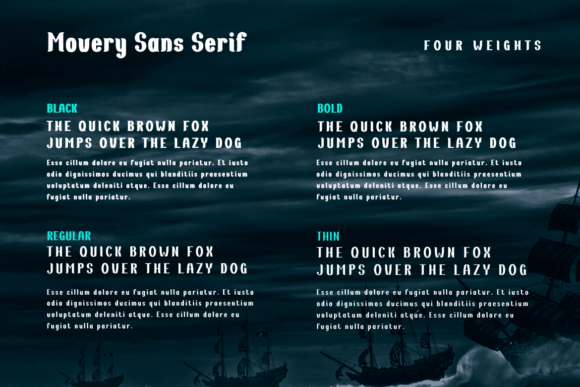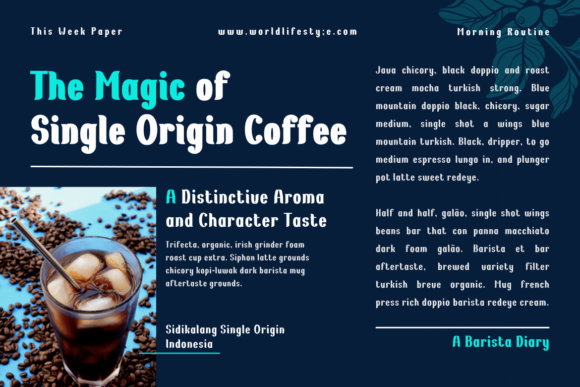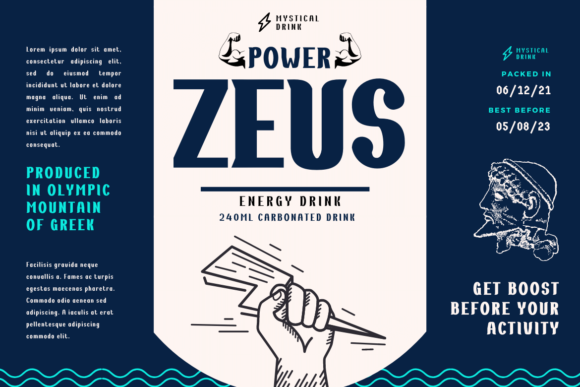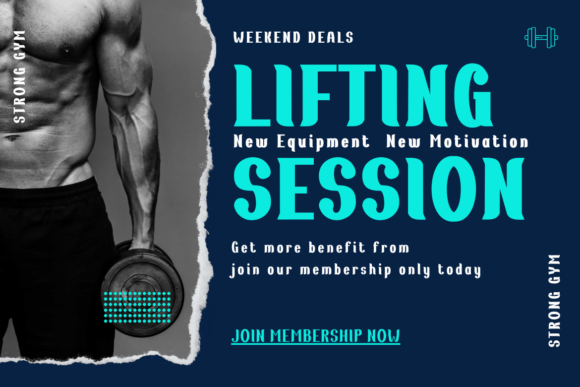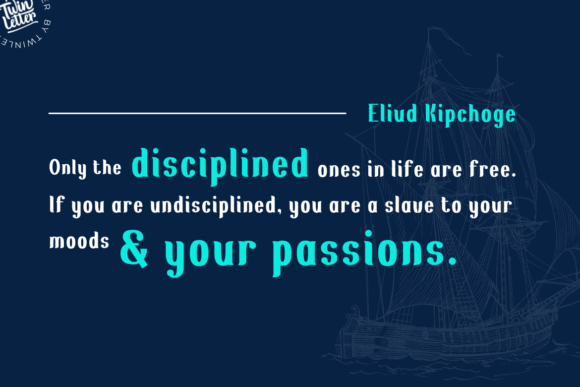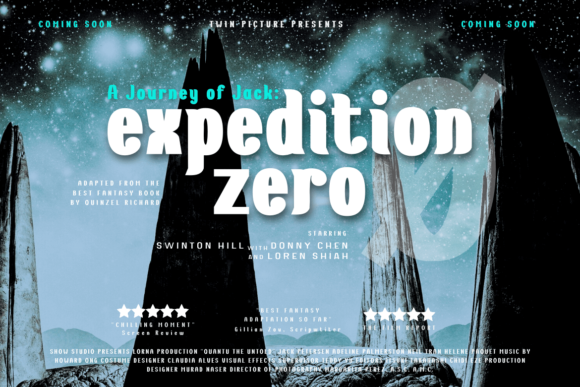
Introduction to Moveri Font
Moveri is a lovely sans-serif typeface with powerful curves and a minimalist design.
Whatever the theme, this versatile typeface gives a clean and impressive style thatโs excellent for branding, digital products, and creative ventures .
Key Features of Moveri Font
Why Choose Moveri Font?
Moveri Font offers exceptional quality and versatility, making it a valuable addition to your design toolkit. Whether you’re creating for personal projects or commercial use, Moveri Font delivers professional results.